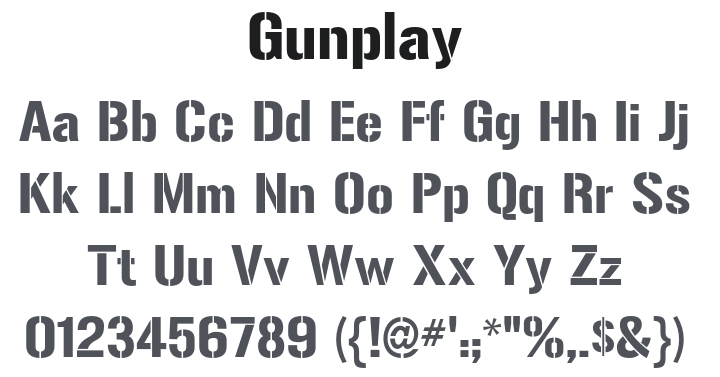
Gunplay Font Family
About Gunplay
Gunplay channels the bold swagger of 1970s action cinema into a hard-edged display typeface built for impact. Inspired by the lettering from The Getaway, it trades subtlety for attitude, with sharp angles and dense forms that project tension and authority. Three special effect styles expand its range, from clean headline weight to distressed, cinematic grit. Designed for posters, logos, apparel, and bold editorial layouts, Gunplay delivers the unmistakable energy of pulp titles and street graphics. With extended Latin support, it carries its defiant style across languages...rugged, confident, and unapologetically loud.